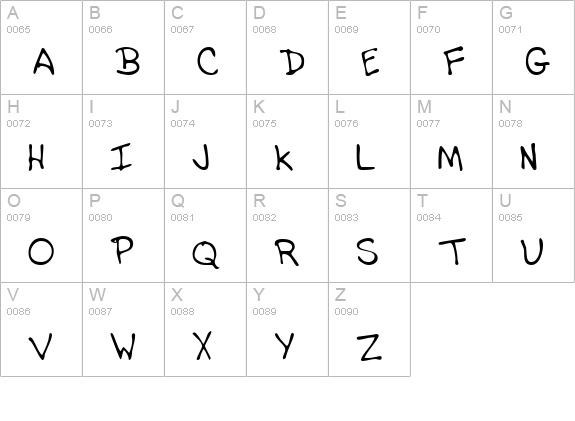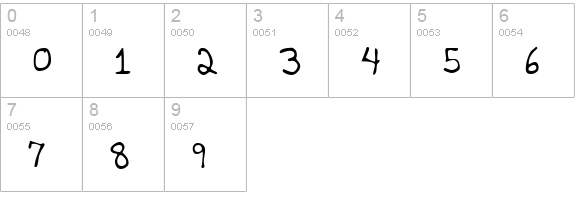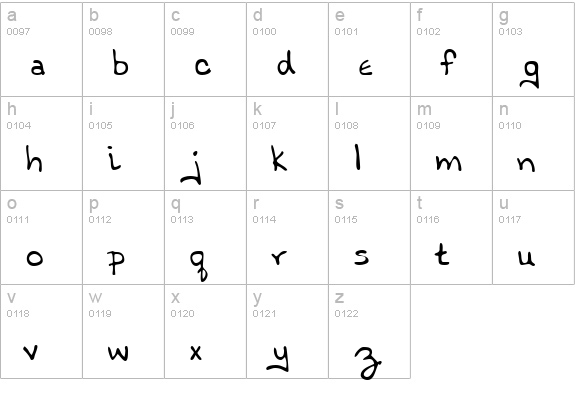
AustinsHand Regular Font Details
AustinsHand Regular is the standard, neutral variant in the AustinsHand typeface family \xE2\x80\x94 well suited to general body text, paragraphs, and standard typographic work.
AustinsHand Regular font is a charming and versatile typeface that exudes a sense of warmth and friendliness. Its hand-drawn appearance gives it a unique and playful feel, making it perfect for a wide range of design projects. Whether you're creating invitations, posters, or branding materials, AustinsHand Regular will add a touch of whimsy to your work. Best of all, AustinsHand Regular is available for free download at FontsMarket.com. This means you can easily add this delightful font to your collection without breaking the bank. Don't miss out on the opportunity to enhance your designs with the playful charm of AustinsHand Regular font – download it for free today!